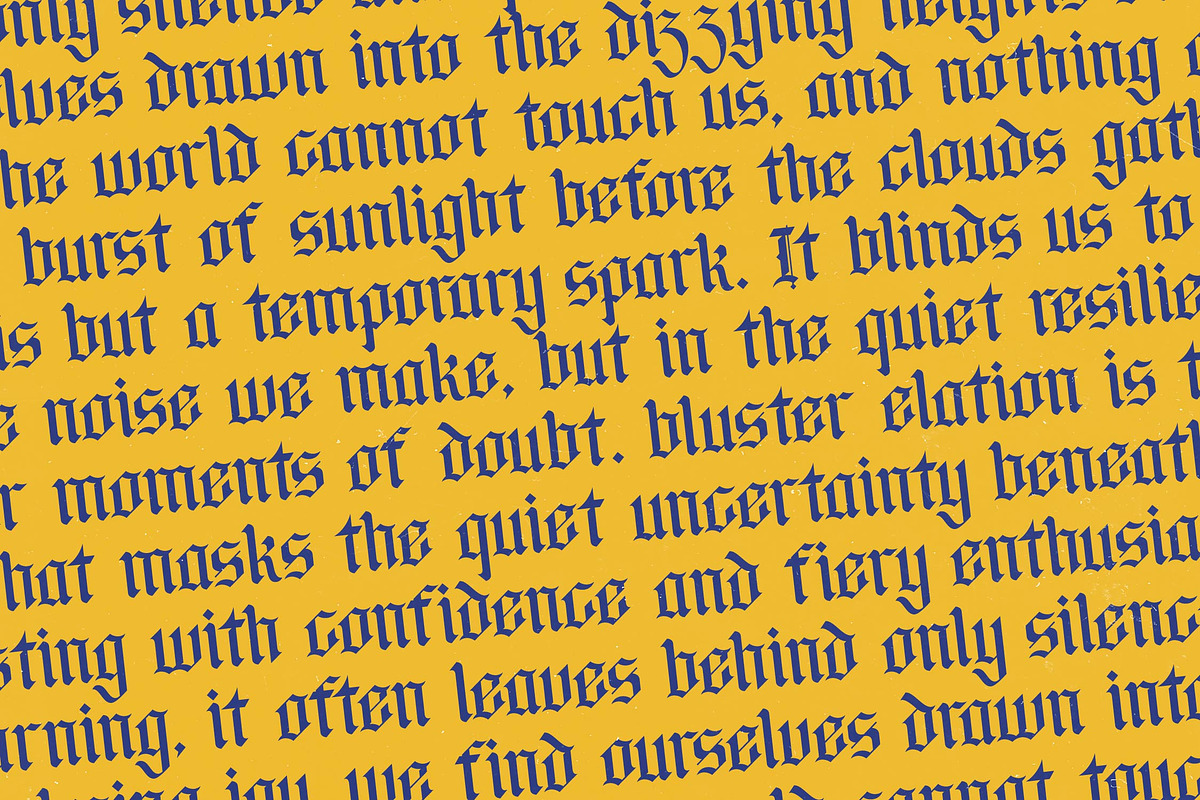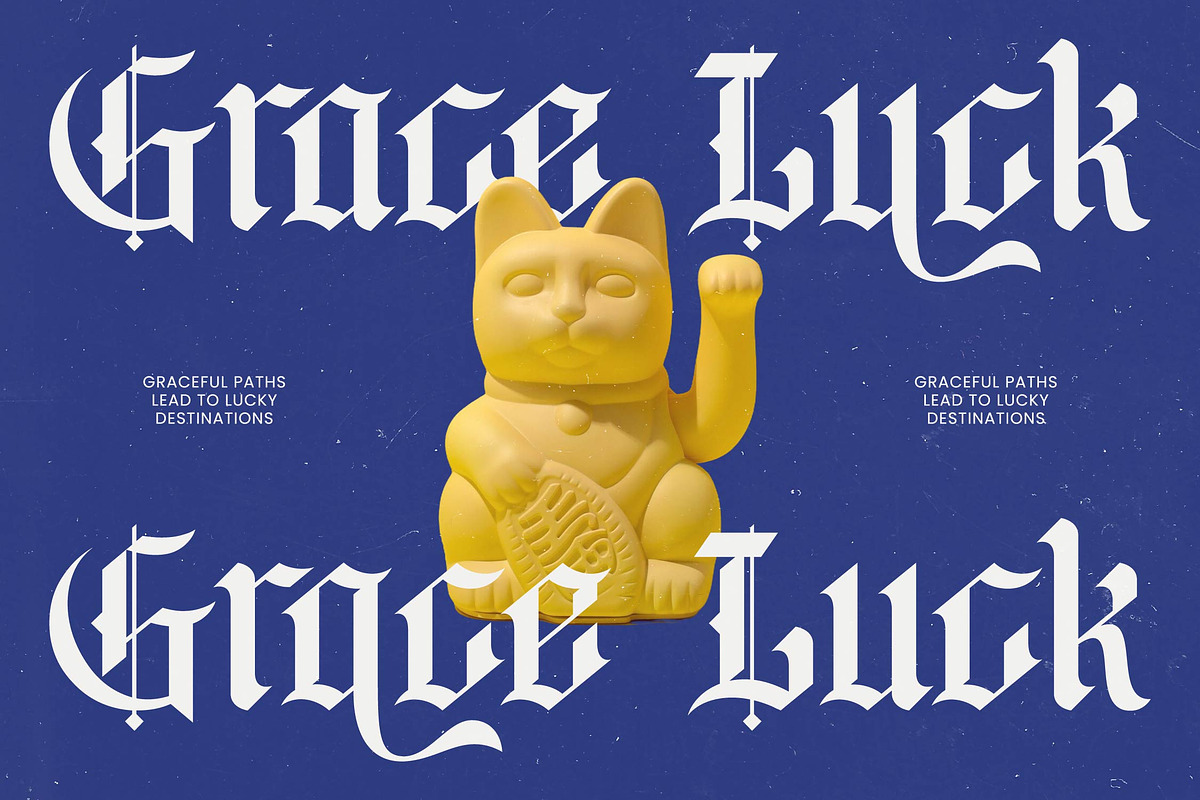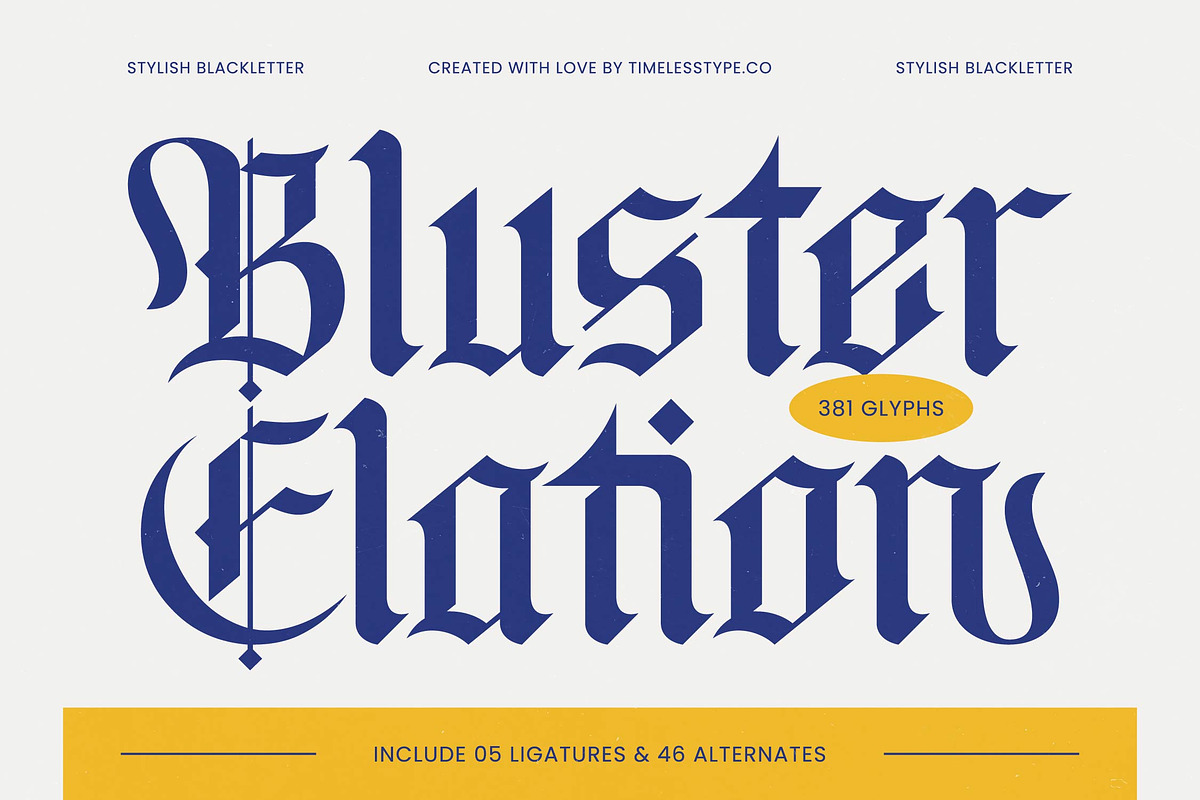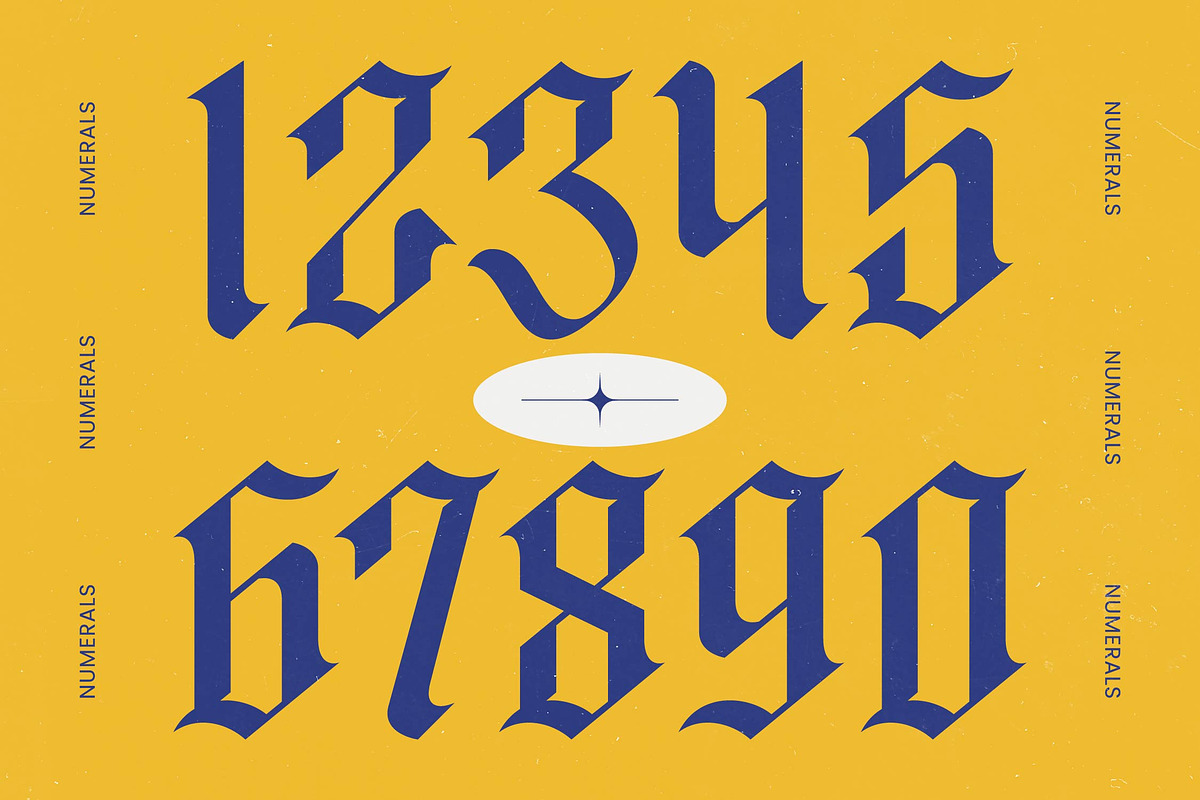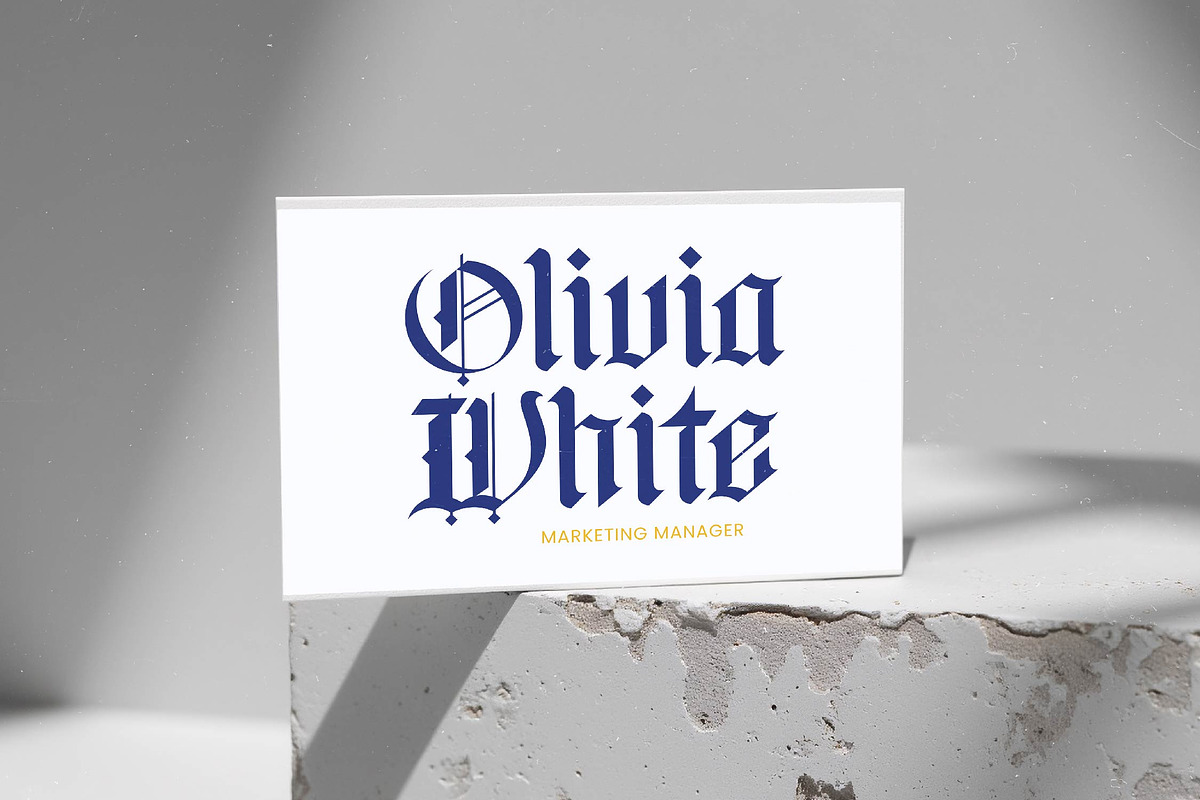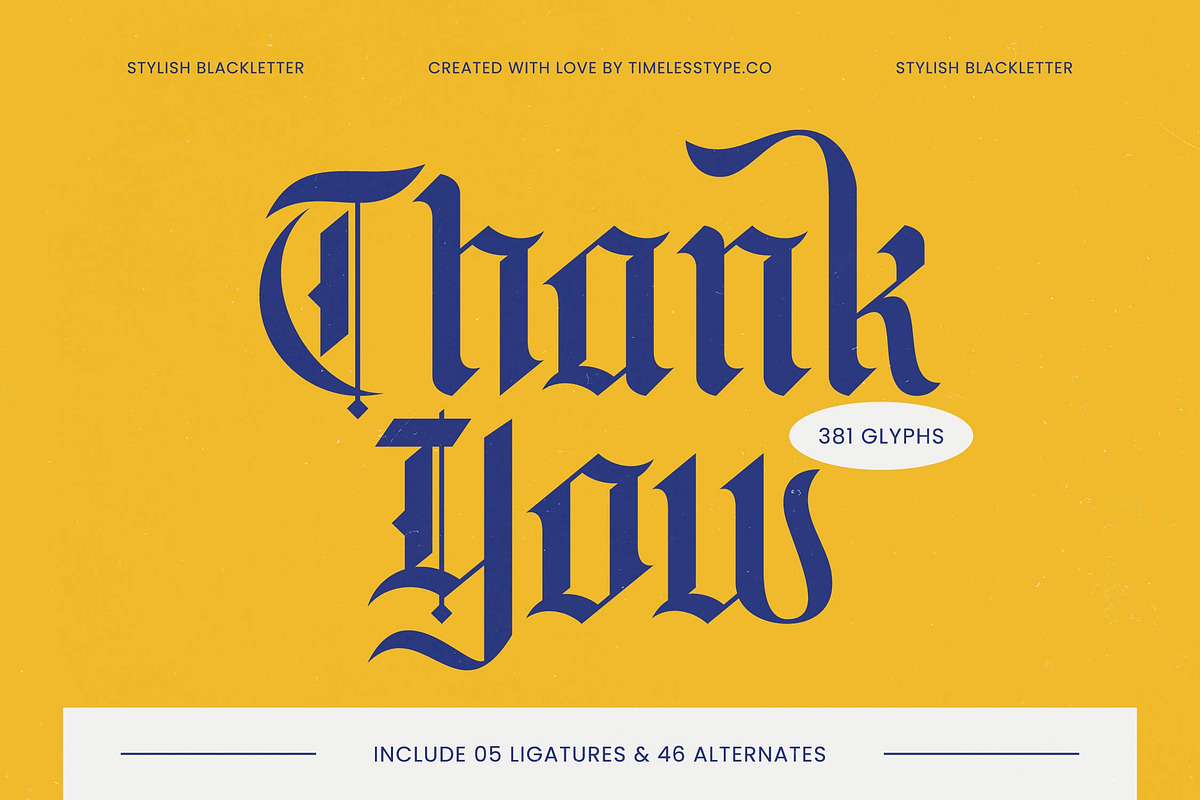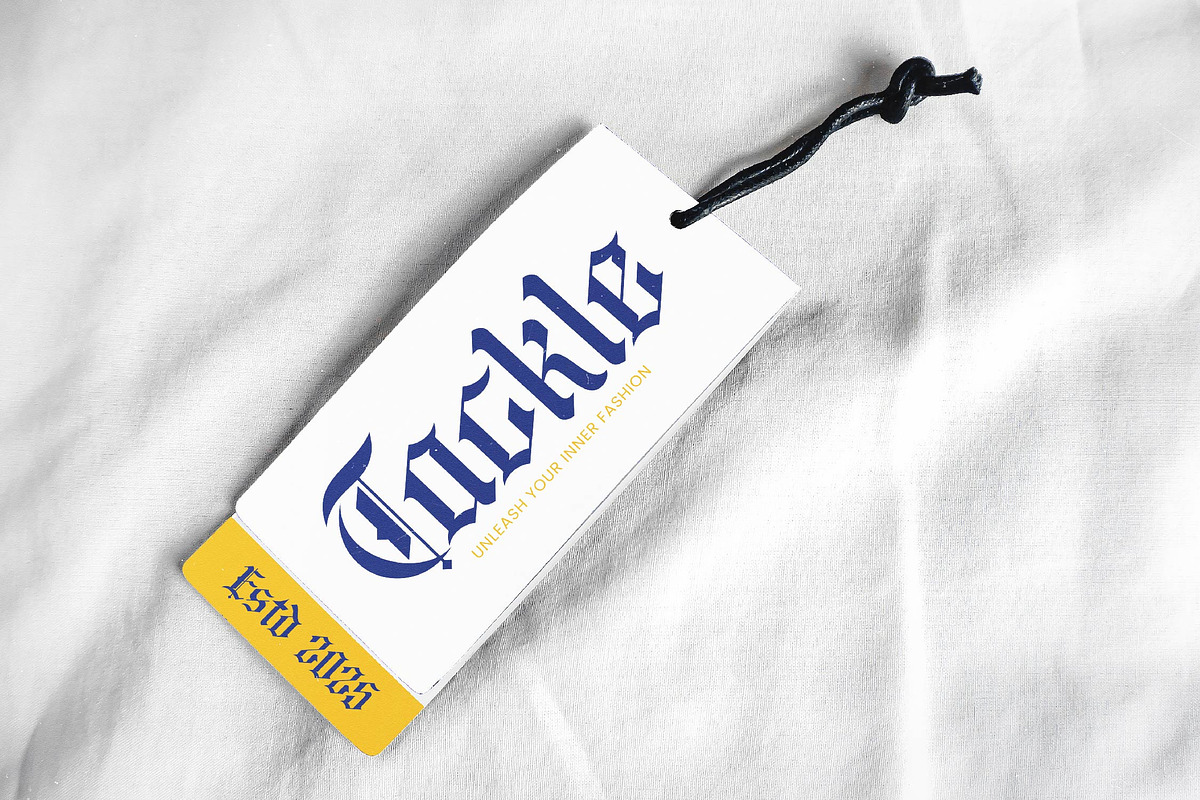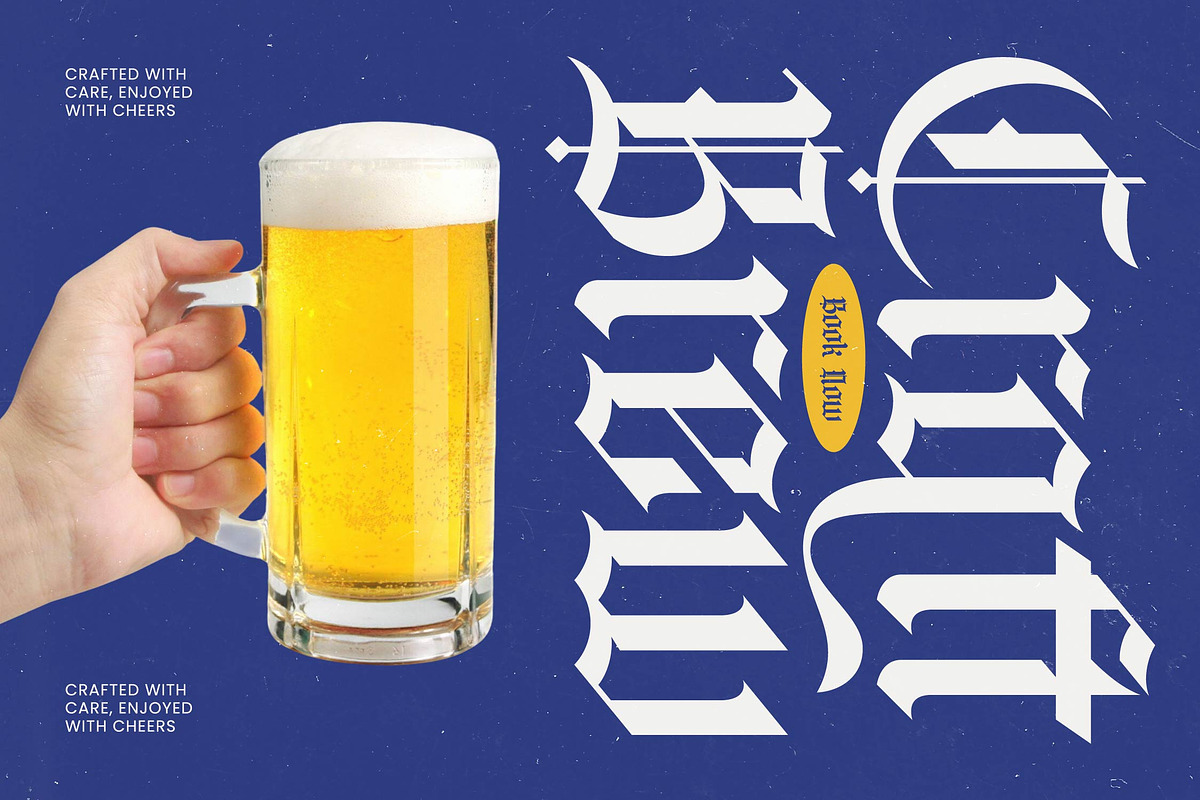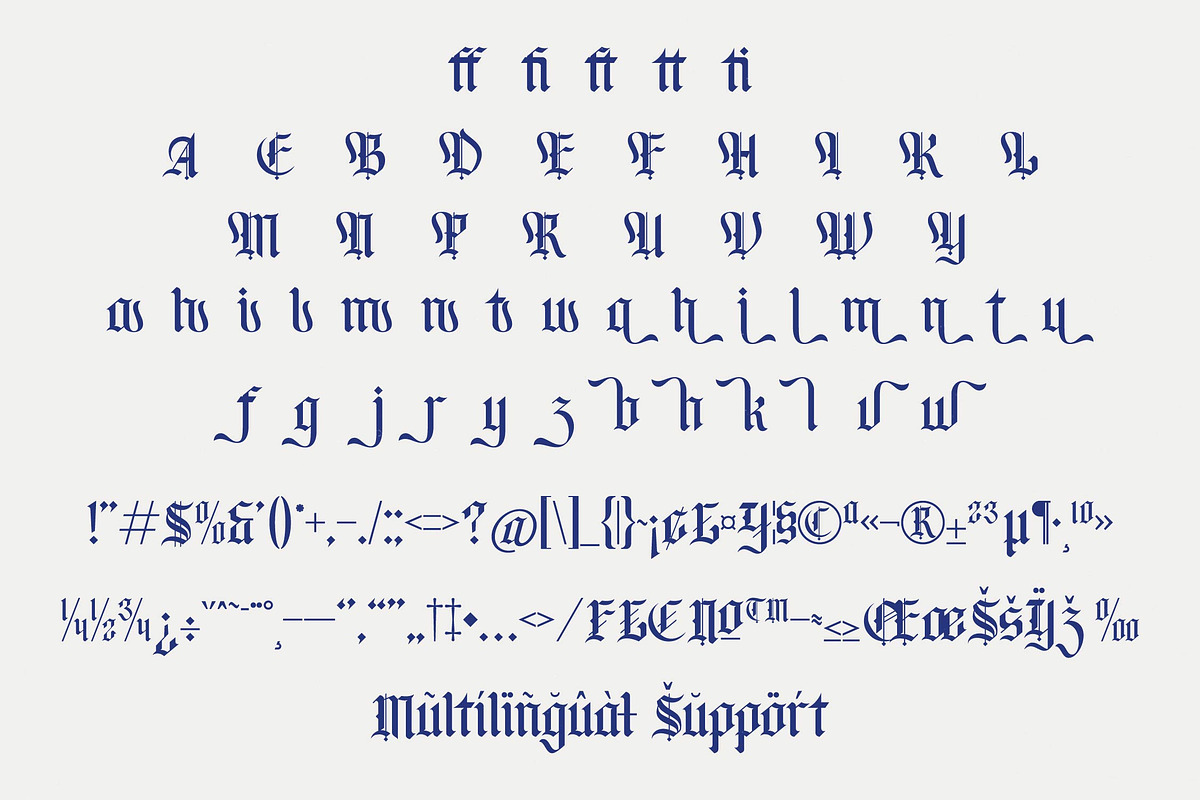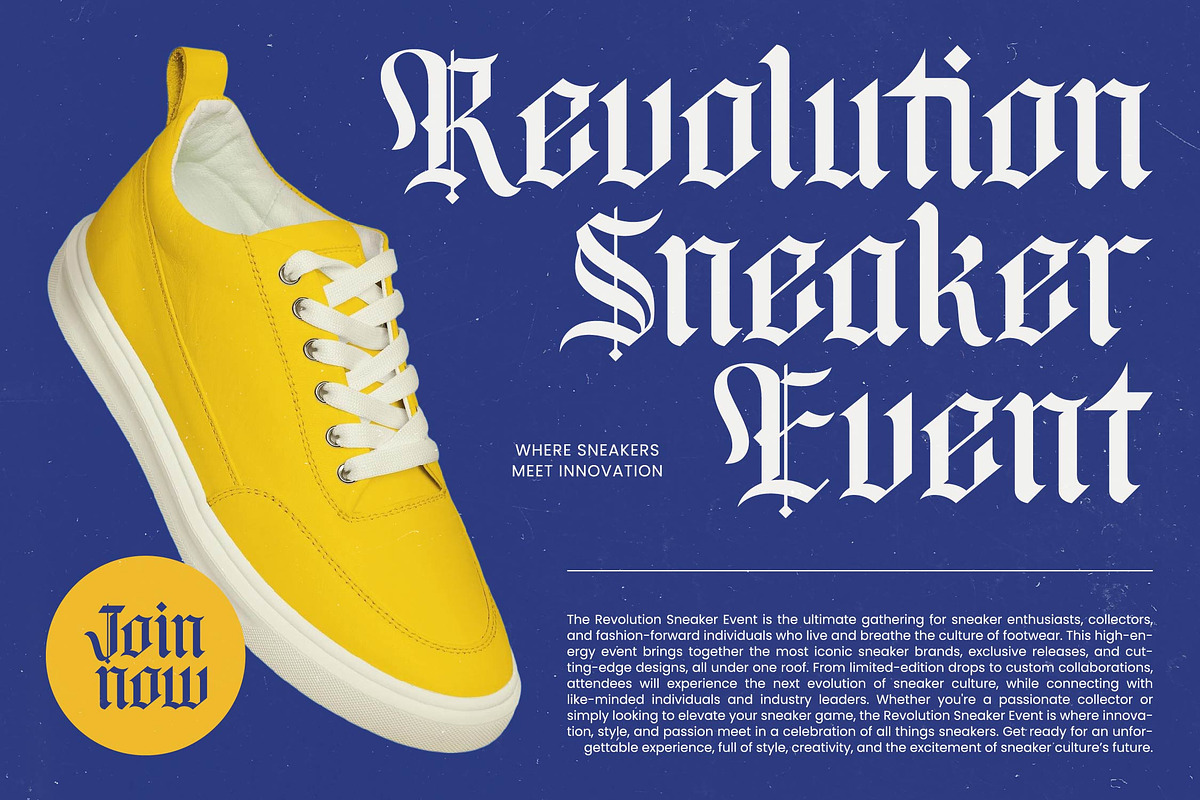
Bluster Elation Modern Blackletter
Experience the bold meeting of tradition and contemporary flair with Bluster Elation. This striking blackletter typeface redefines classic gothic aesthetics for the modern creator.
Drawing inspiration from historical manuscript lettering and the sharp, aggressive lines of urban calligraphy, this font captures a unique stylish blackletter vibe. It balances the weight of medieval fraktur with the clean, sophisticated finishes required for today's high-end visual landscape.
This modern serif display alternative commands attention with its luxury typography feel and high-contrast serif elements. It is an editorial font designed for maximum branding impact, offering a sharp, edgy personality that remains remarkably legible and chic.
aligning perfectly with the current modern serif trend and the resurgence of decorative editorial display fonts, it satisfies the demand for character-driven typography. It bridges the gap between heritage and future-forward design, making it a staple for trendsetting aesthetics.
From high-end logo design and fashion branding to experimental editorial layouts, this typeface excels across diverse media. It is equally at home on streetwear packaging, moody wedding stationery, or bold fashion magazine covers.
The package is incredibly versatile, featuring 381 glyphs including unique ligatures and creative alternates to customize your look. Full multilingual support ensures you can reach a global audience with its extensive range of international characters.